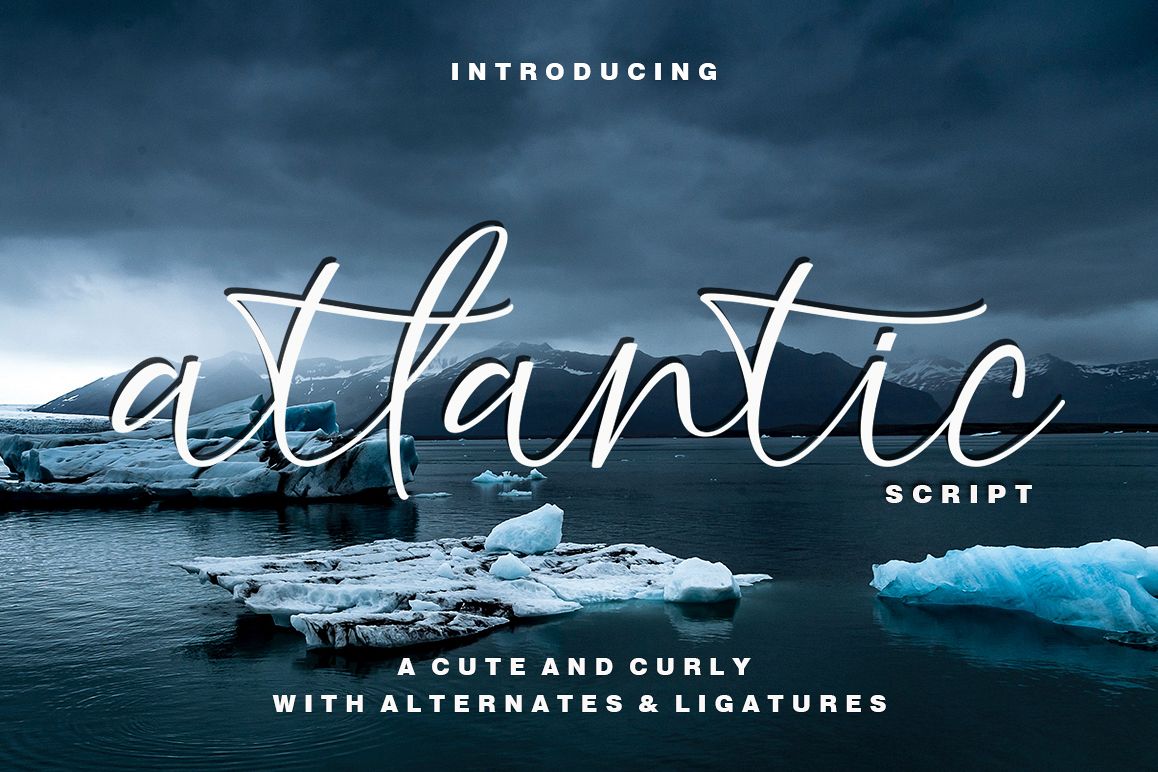
atlantic script
atlantic script is a romantic typefaces. bold, elegant & fun vintage script font. Can be used for various purposes.such as logos, wedding invitation, t-shirt, letterhead, signage, news, posters, badges etc.